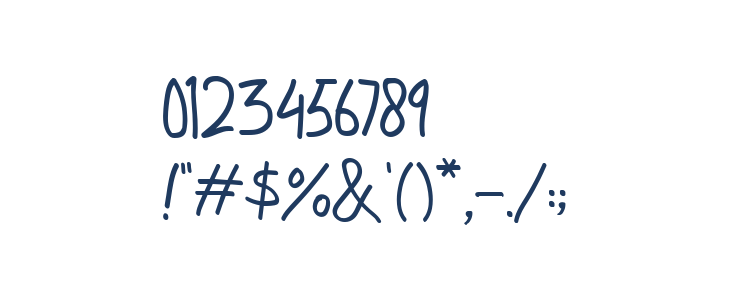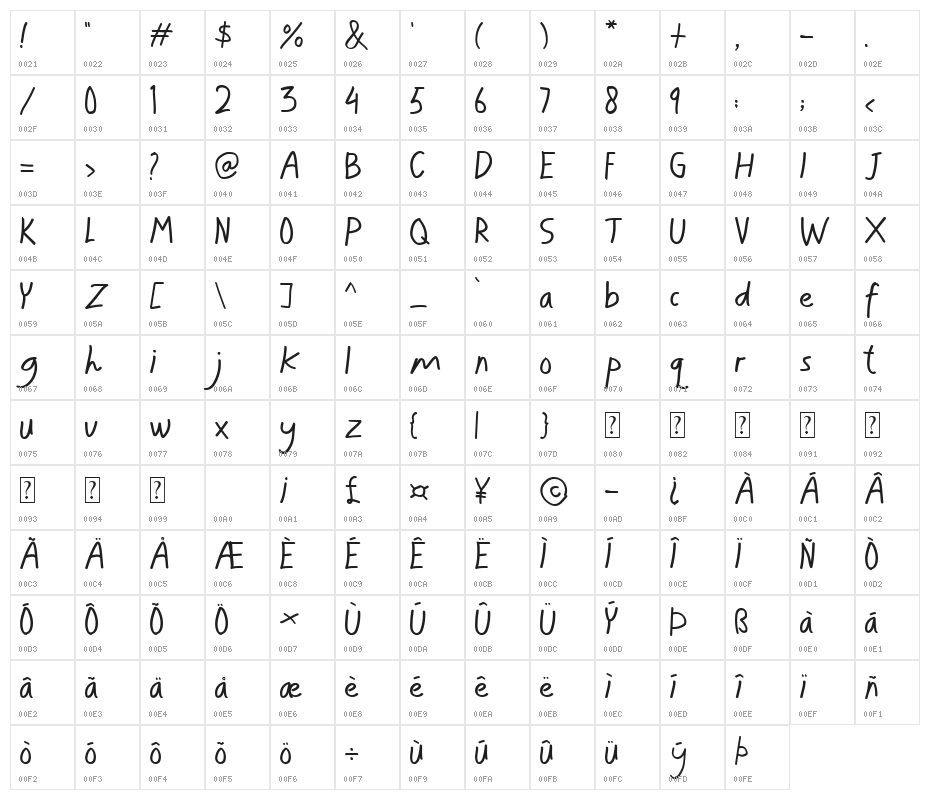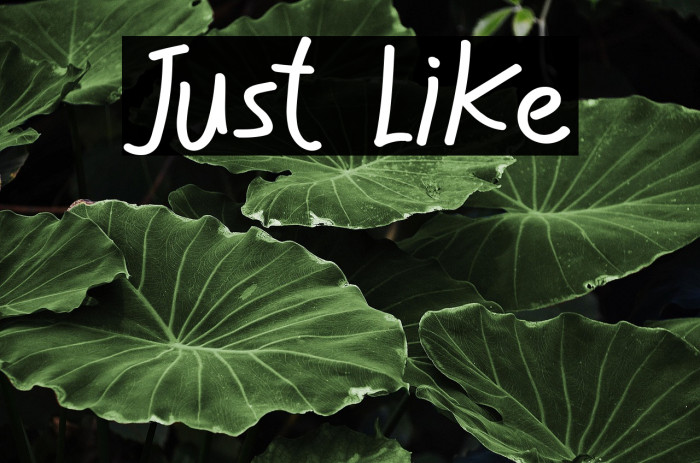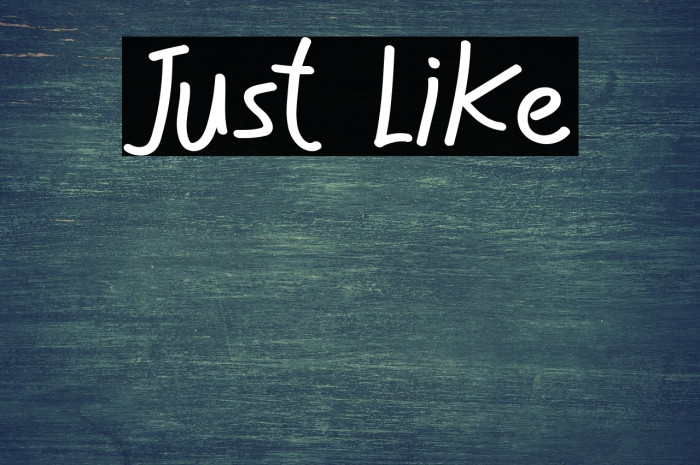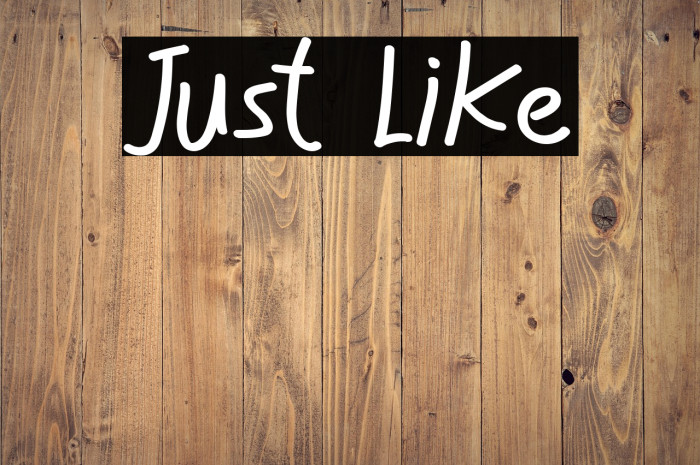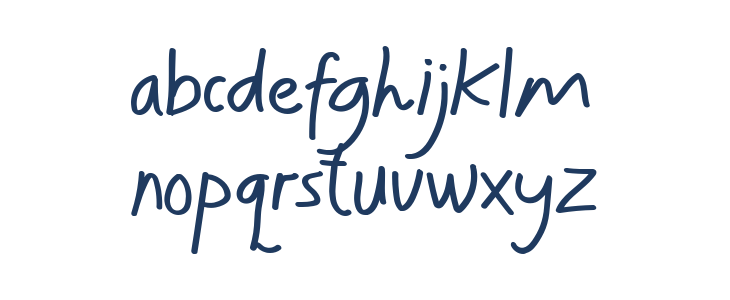
Just Like Font
Just Like Description
This font exudes a casual and friendly vibe, characterized by its handwritten style that mimics natural penmanship. The letters are slightly irregular, adding to the authentic handwritten feel. The strokes are smooth and fluid, with a consistent medium weight that provides good readability. The uppercase and lowercase letters maintain a playful yet legible form, making it suitable for informal and creative projects. The numerals and special characters are designed to match the overall style, ensuring a cohesive look across all text elements.
| Overall Style | Casual, Friendly |
| Proposed Projects | Ideal for greeting cards, personal notes, informal branding, and creative projects that require a personal touch. |